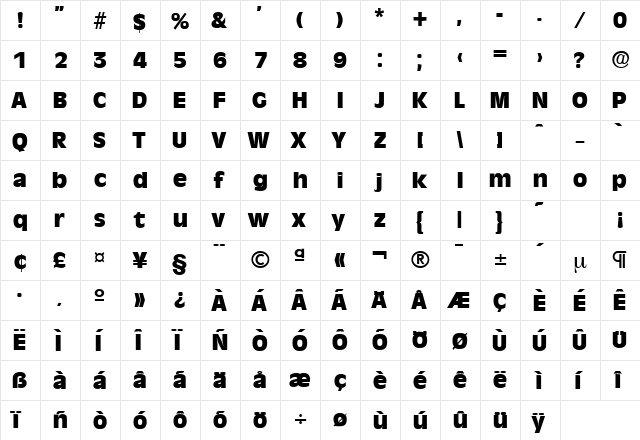
Ravenna-Serial-Heavy Regular
Design Context for Ravenna-Serial-Heavy Typeface
Ravenna-Serial-Heavy is a composed and adaptable typeface that performs quietly and consistently across a wide range of design contexts.